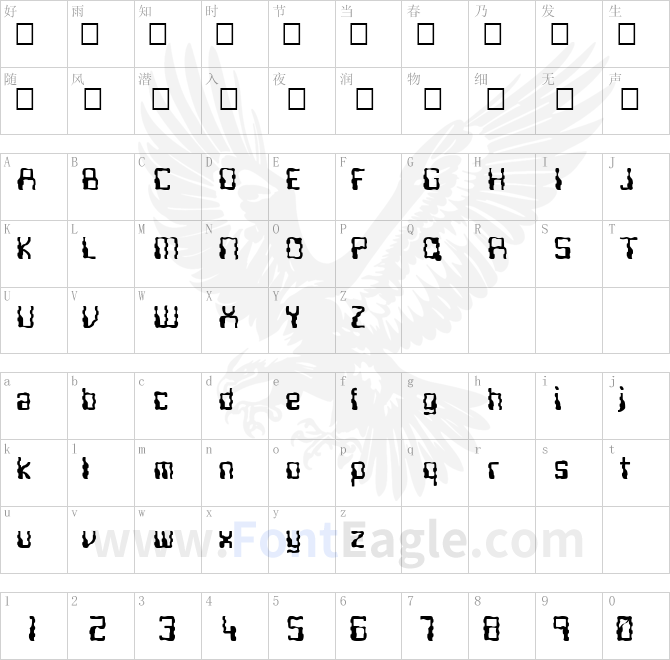
FZ DIGITAL 5 WAVEY Normal.ttf Font Image
FZ DIGITAL 5 WAVEY Normal.ttf Base Font Information
- Font name:FZ DIGITAL 5 WAVEY
- Font Subfamily ID:FZ DIGITAL 5 WAVEY
- Font Full Name:FZ DIGITAL 5 WAVEY
- Postscript:FZ-DIGITAL5WAVEY
FZ DIGITAL 5 WAVEY Normal.ttf Characters Sample